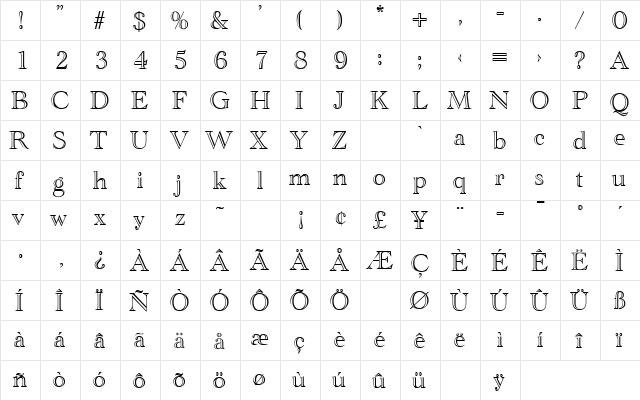
CathedralOpen Regular
Design Context for CathedralOpen Typeface
CathedralOpen takes a measured approach to typography — its balanced proportions and neutral character make it a reliable workhorse for both digital and print work.